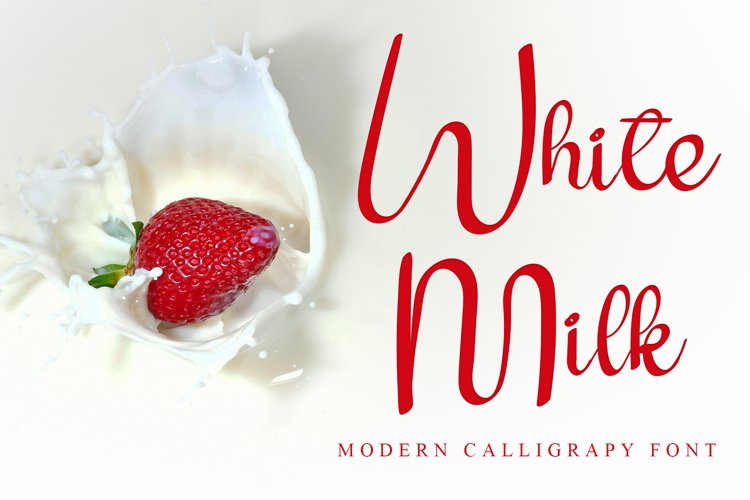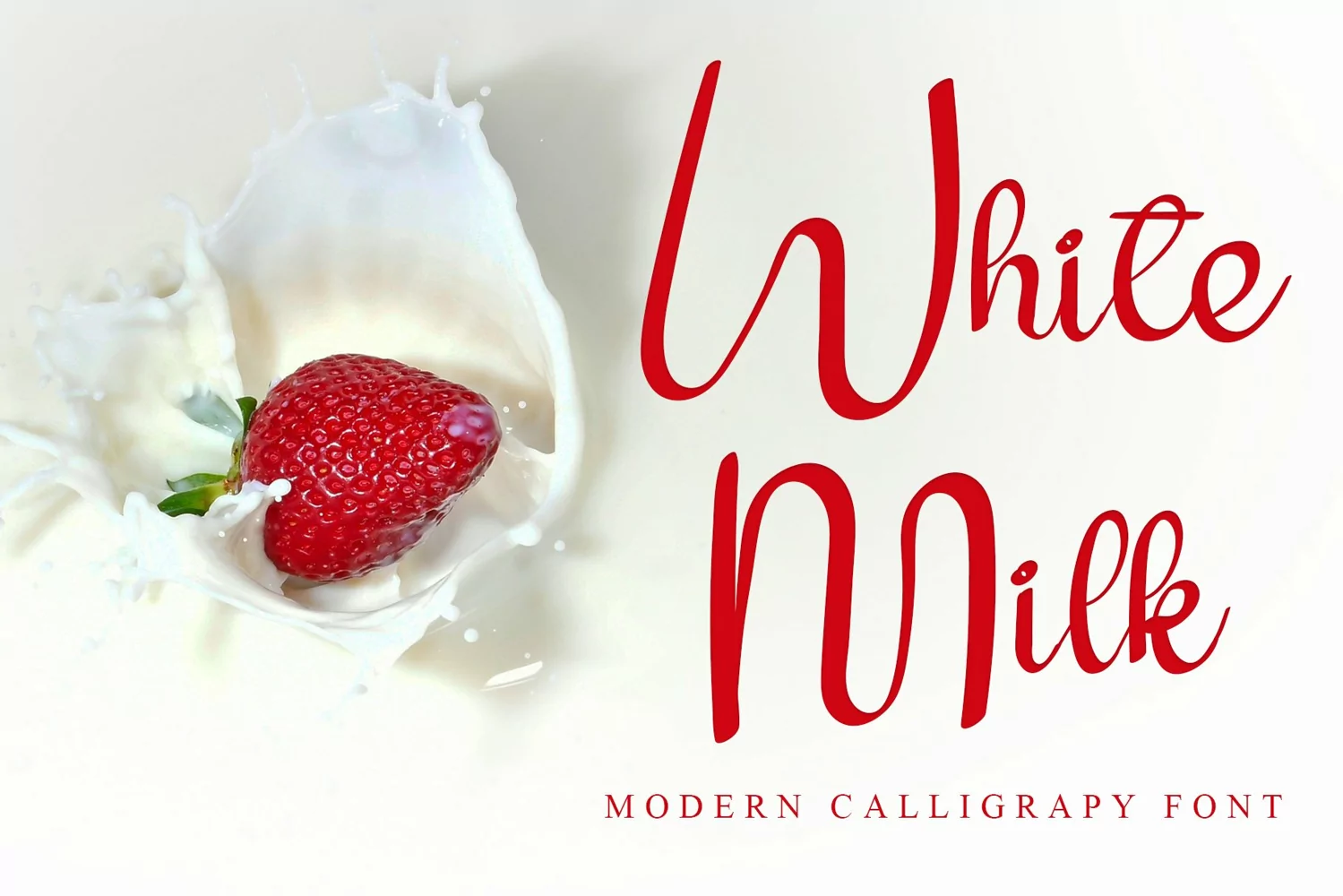
White Milk
Introducing, this is our newest product, we call this product White Milk,
It looks amazing with sweet touches and beautiful curves in each letter. White Milk fonts are perfect for: wedding invitations, fashion magazines, logos, signatures, photography, watermarks, wall displays, social media,